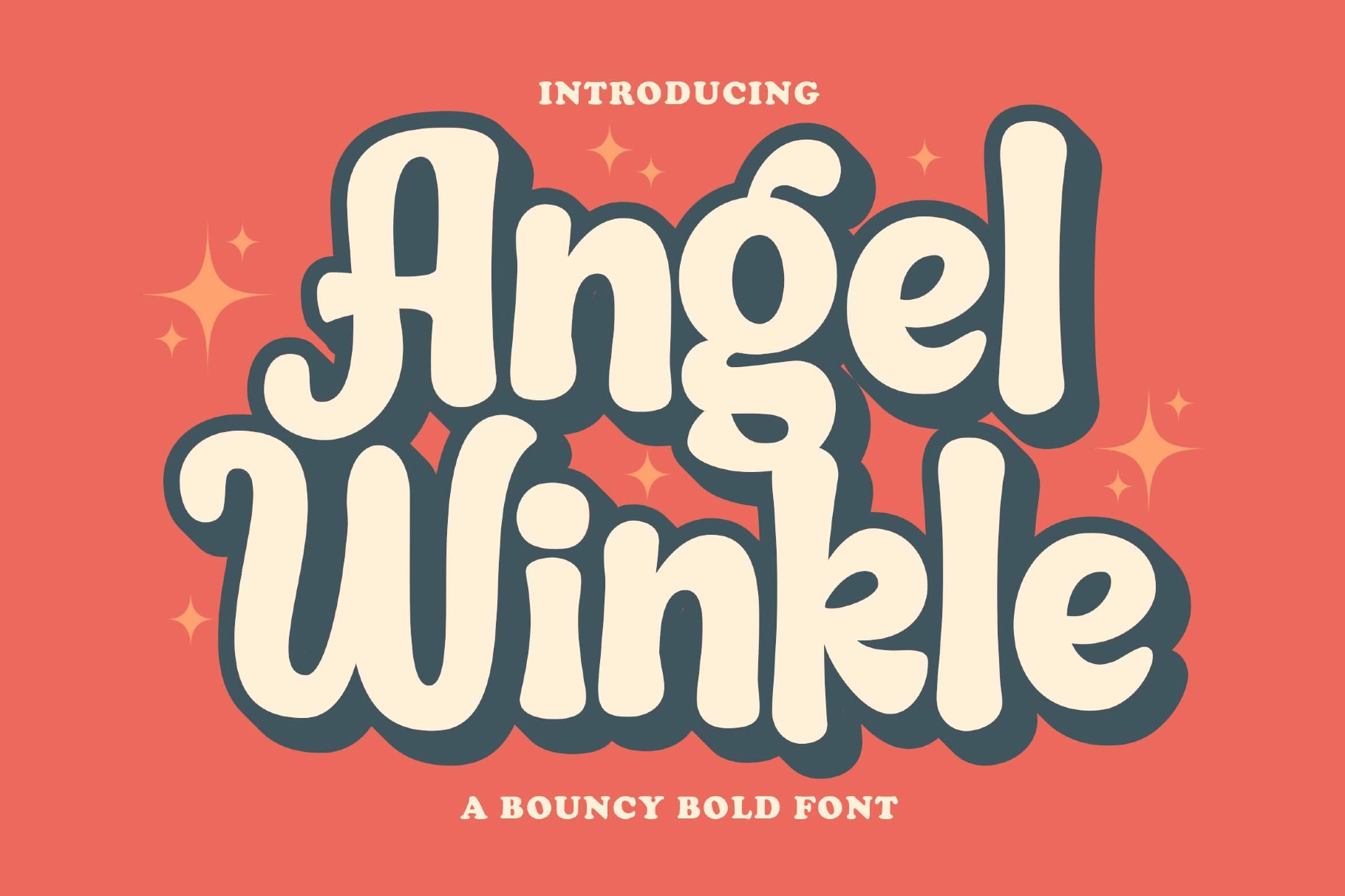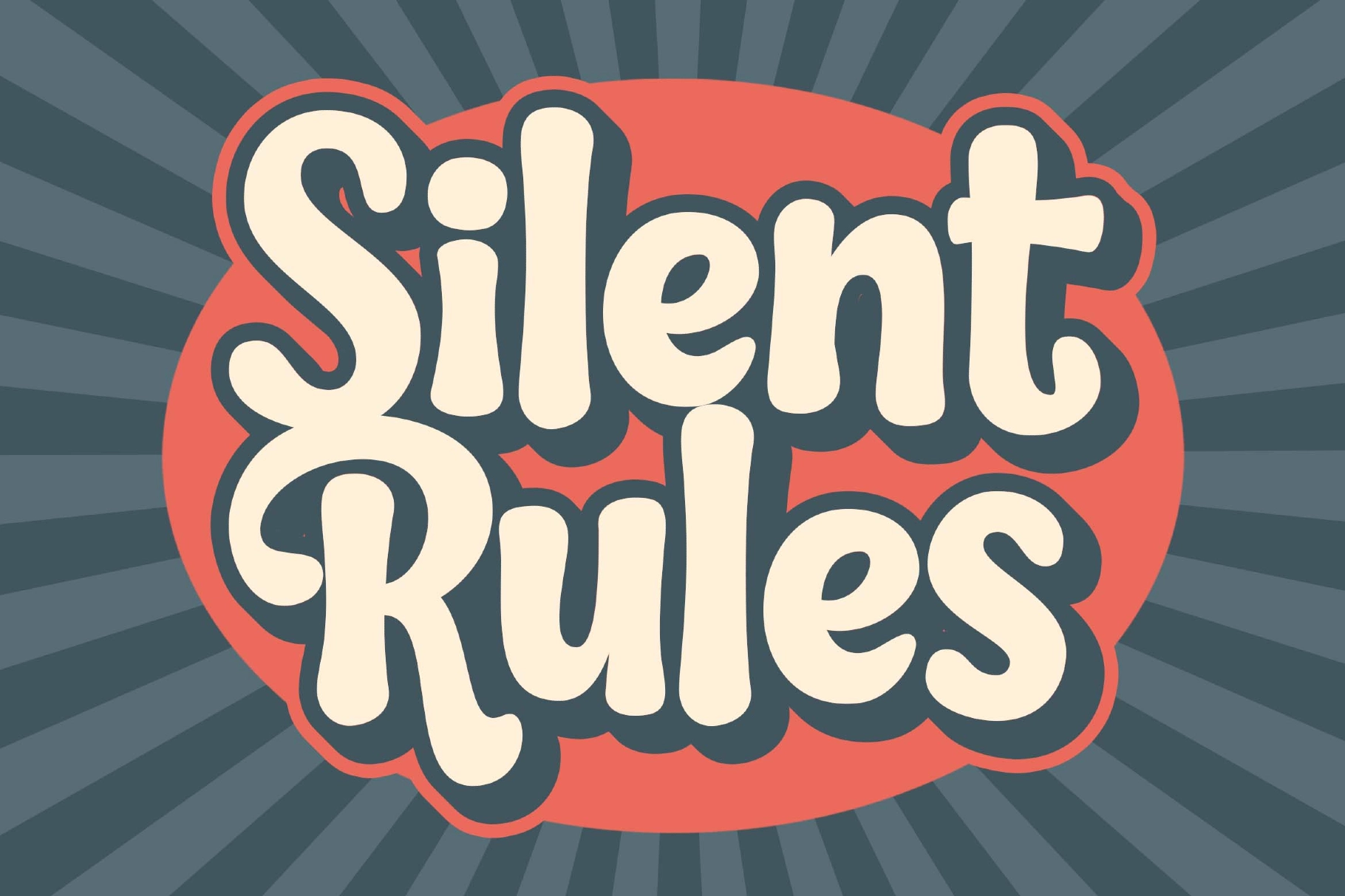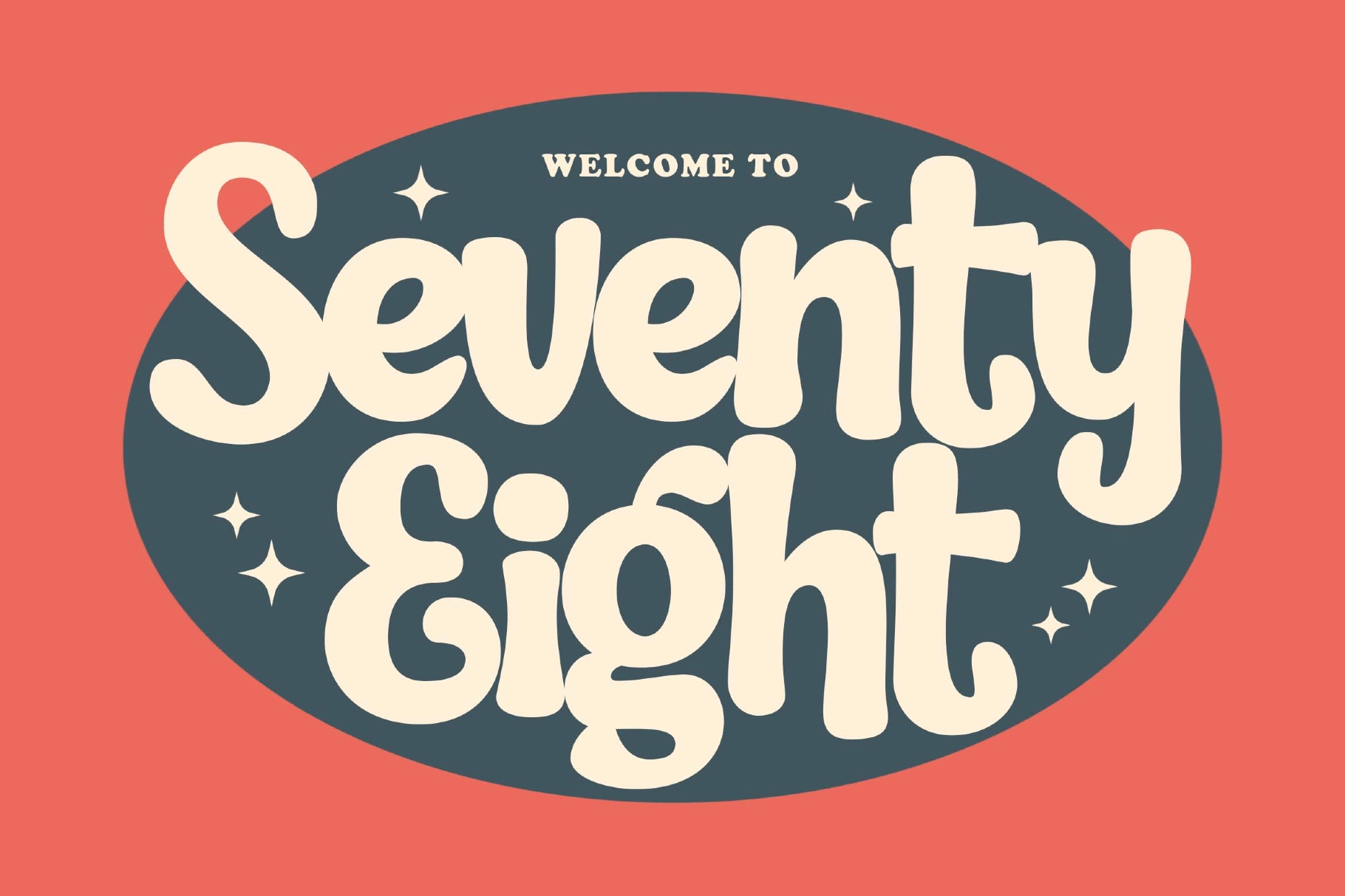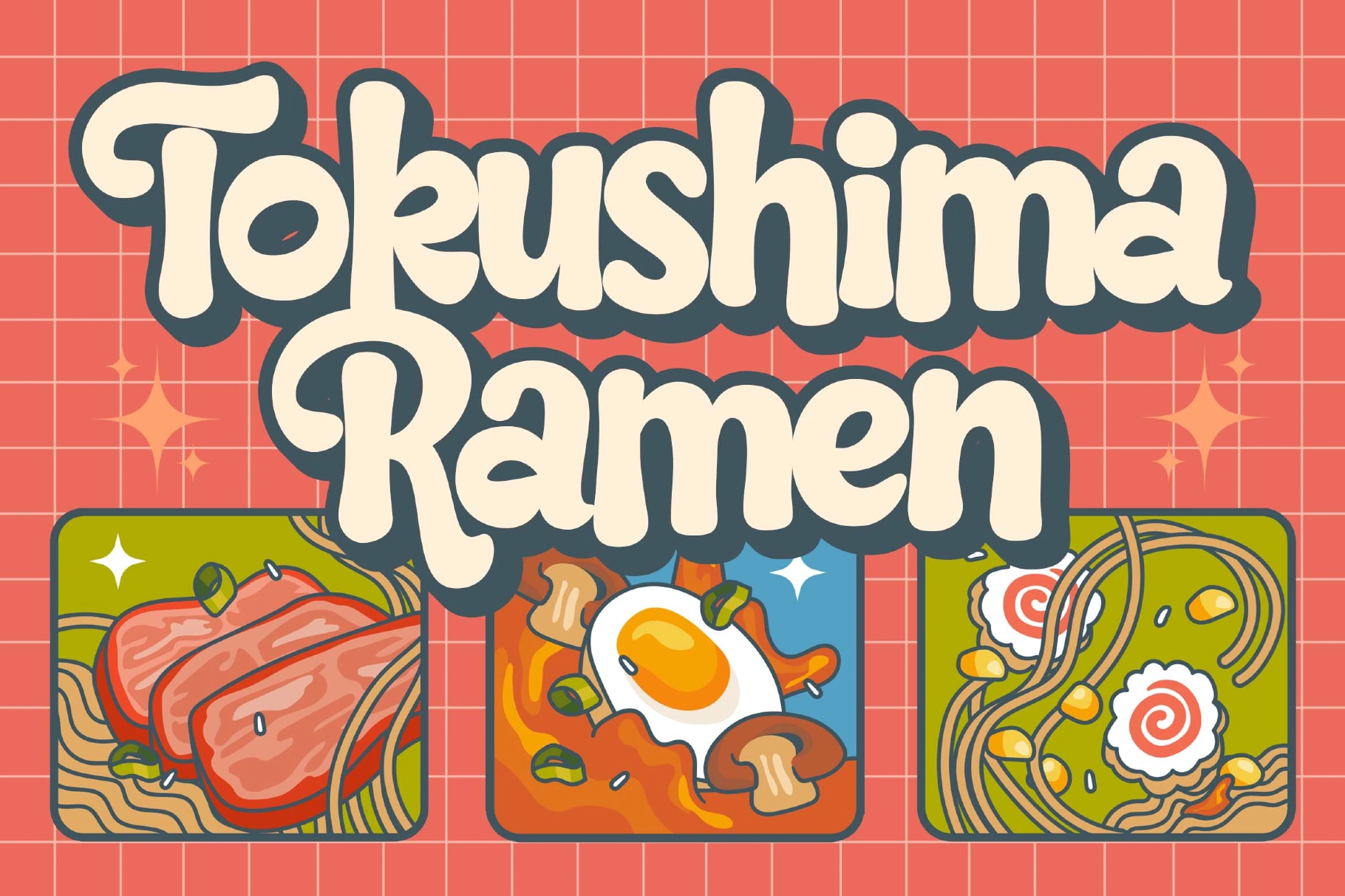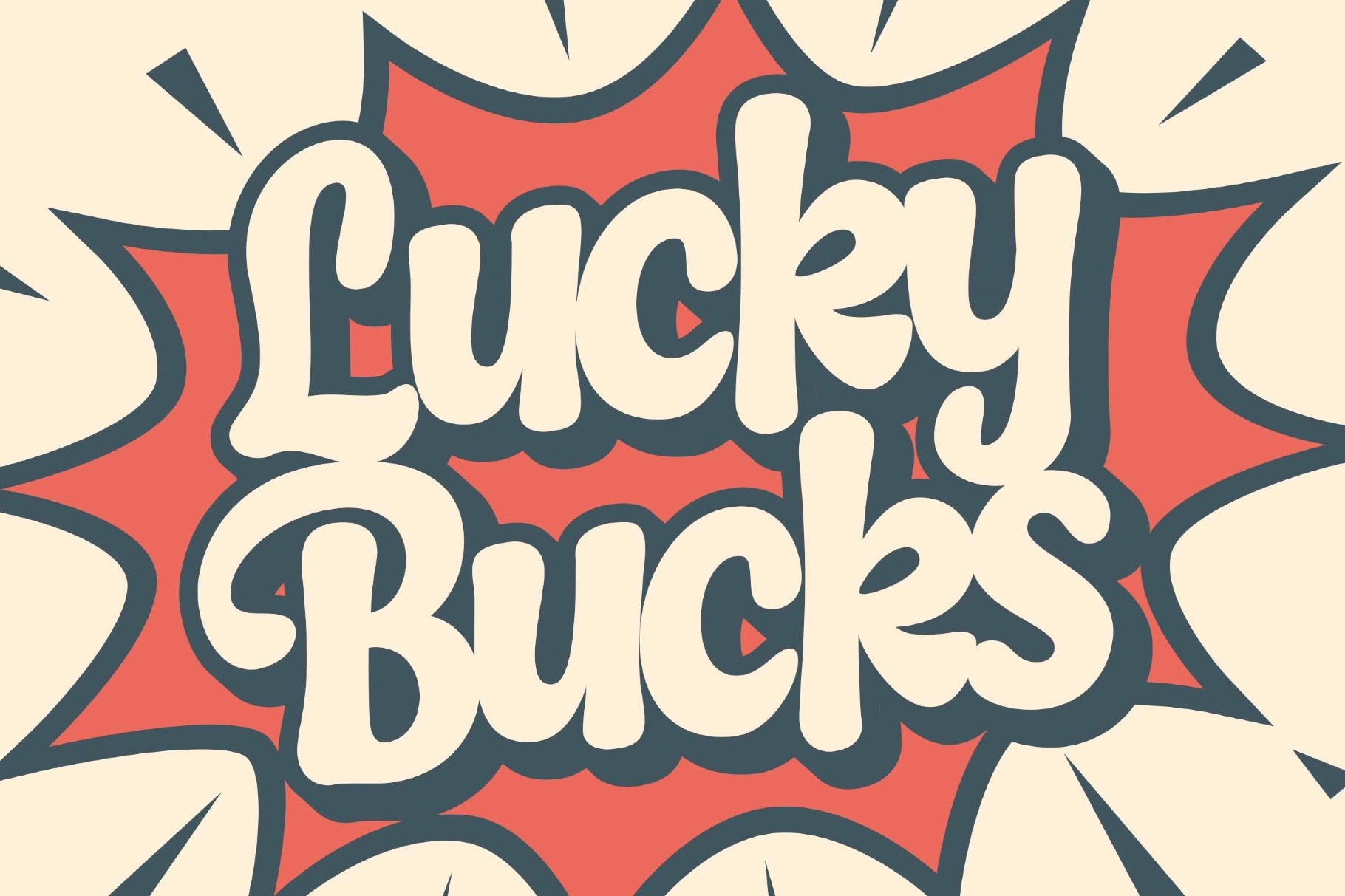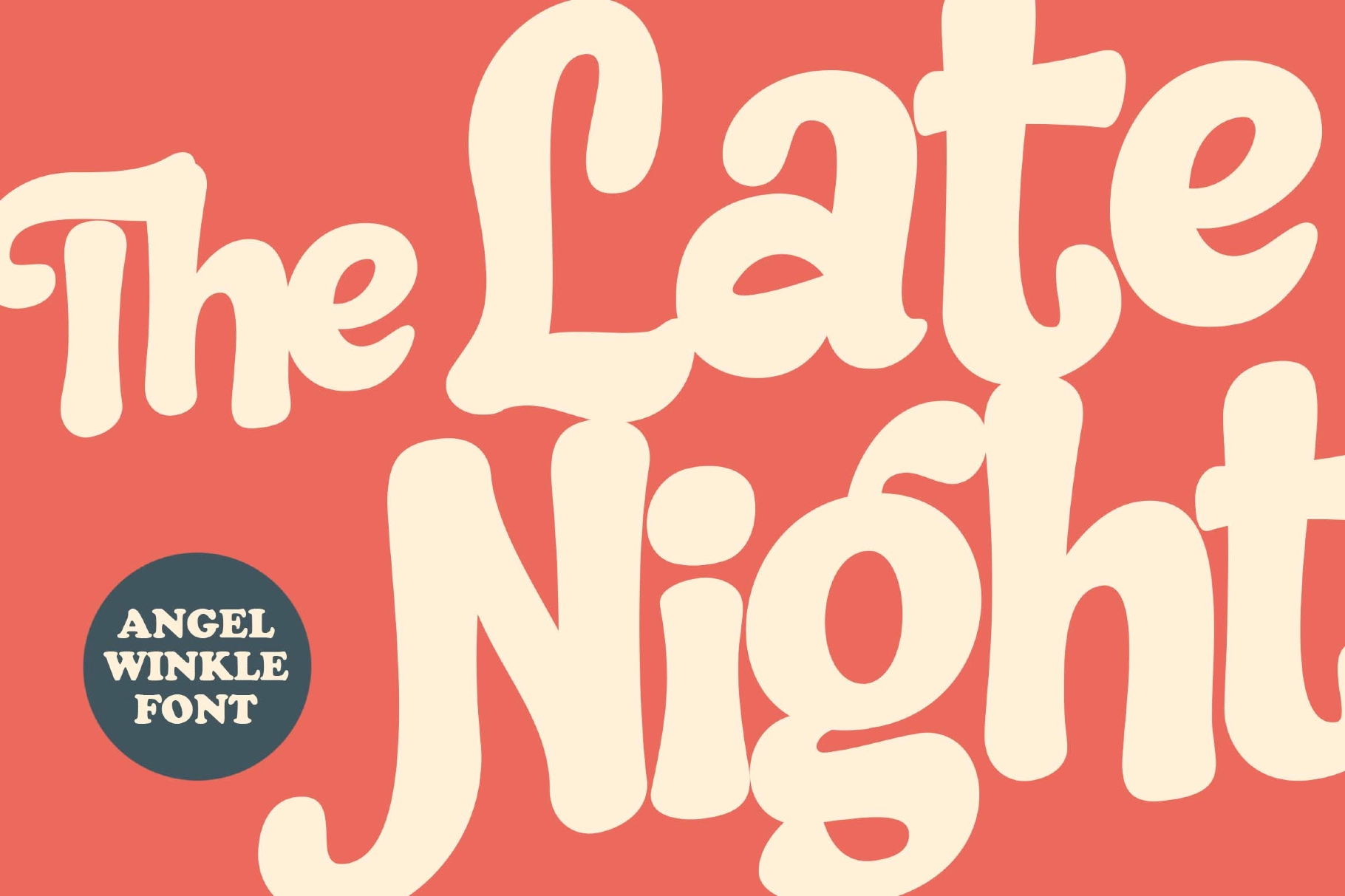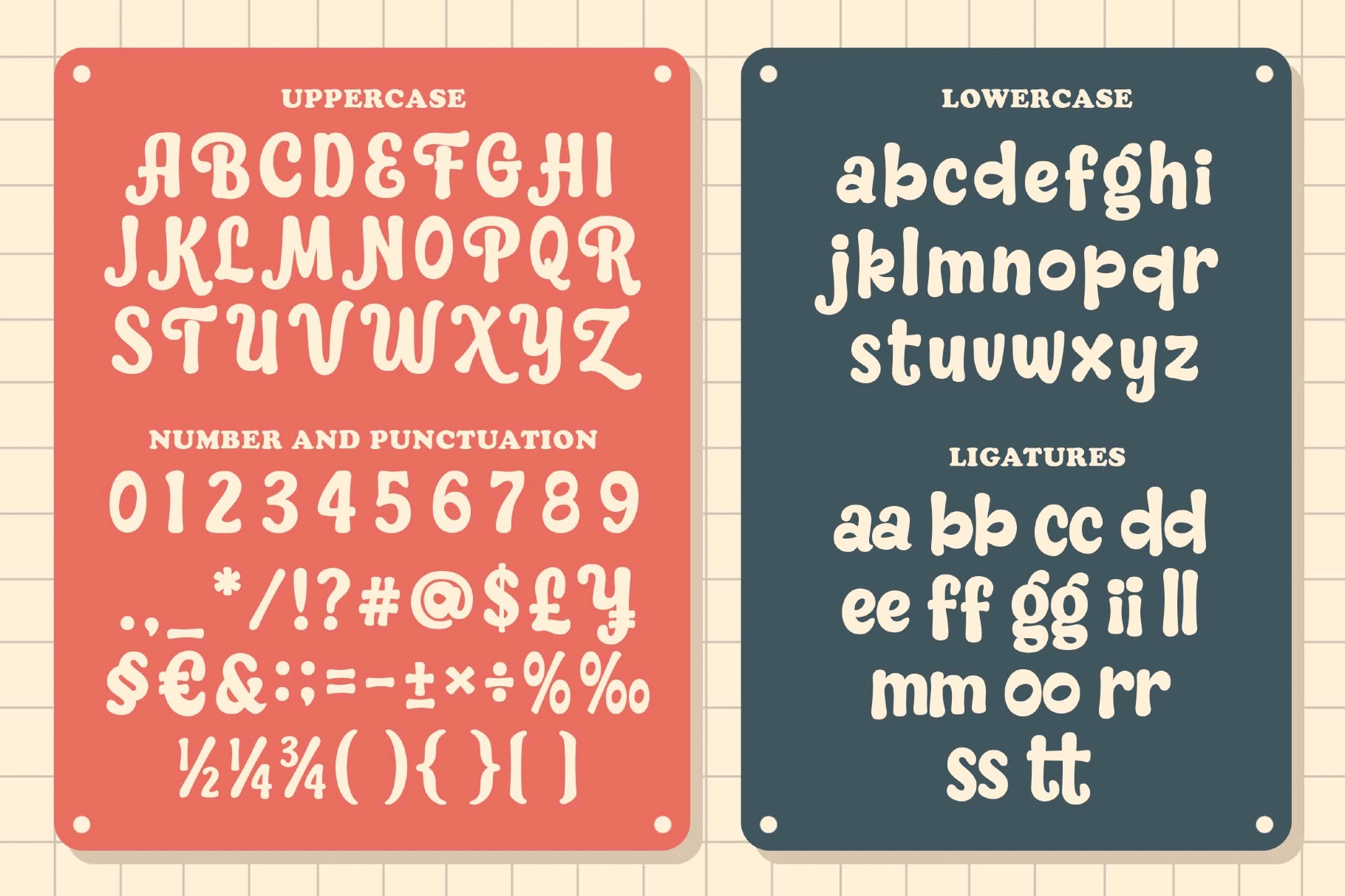
Angel Winkle a Bouncy Bold Font
Angel Winkle
Angle Winkle Outline
Angel Winkle a Bouncy Bold Font is made for any professional project branding, such as logotype, watermarks, poster, branding, promotions, product packaging, etc. Every letter has a bouncy bold design. This font comes Otf and Ttf files.
Angel Winkle font includes a full set of bouncy bold uppercase and lowercase letters, numerals and punctuation. This font has a bouncy bold. See the previews above to get some inspiration on how to use them.